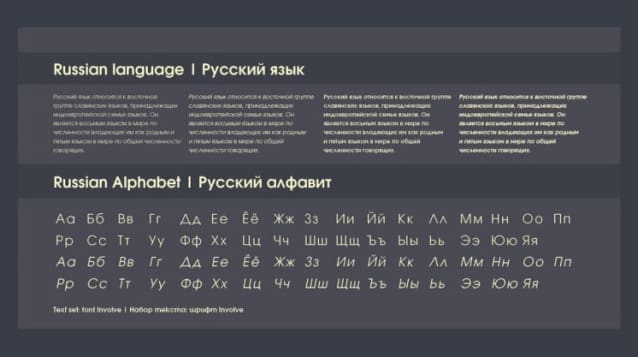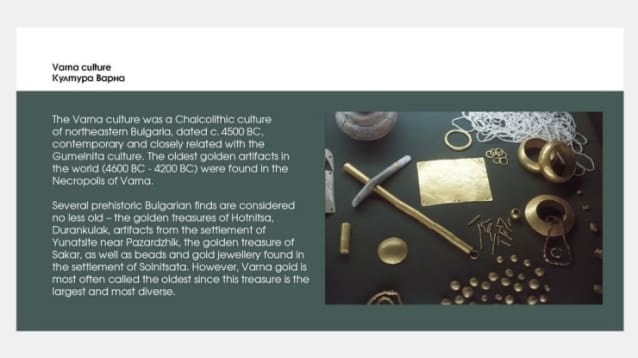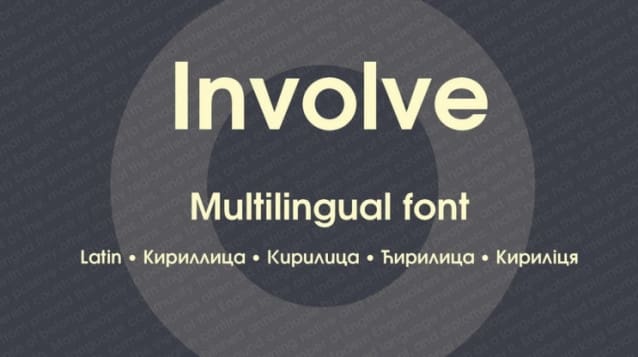
Involve Font Family
Involve Font Family,is a sans serif typeface based on the project Evolventa. Evolventa is a Cyrillic extension of the open-source URW Gothic L font family.
Involve extends the multilanguage coverage of Evolventa and changes the geometry of some glyphs. It includes also new styles (Medium, SemiBold) as well as a variable font format.
Involve is a sleek and contemporary geometric sans-serif typeface that seamlessly marries modern aesthetics with geometric precision. Perfect for branding, editorial design, and digital interfaces, Involve is a timeless typeface that effortlessly adapts to various design contexts. The minimalist design makes it an ideal choice for projects that require a contemporary appearance.